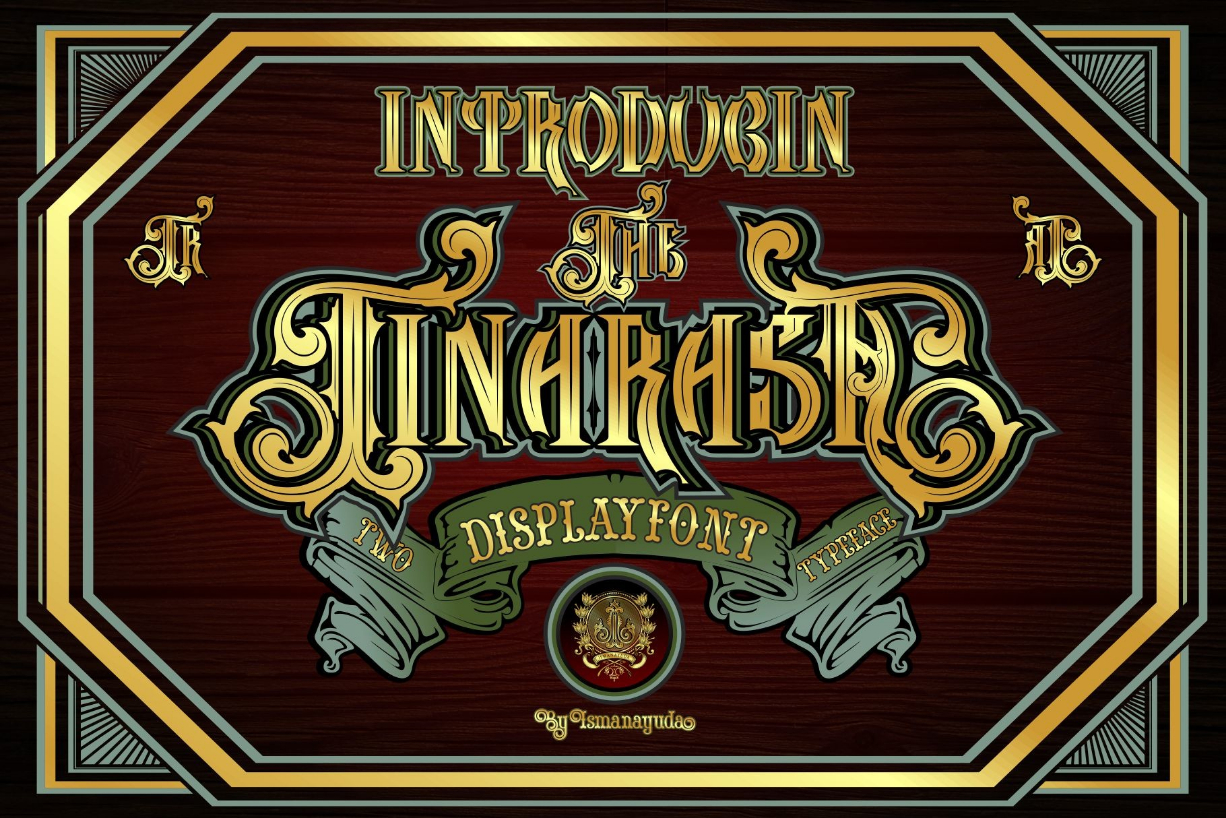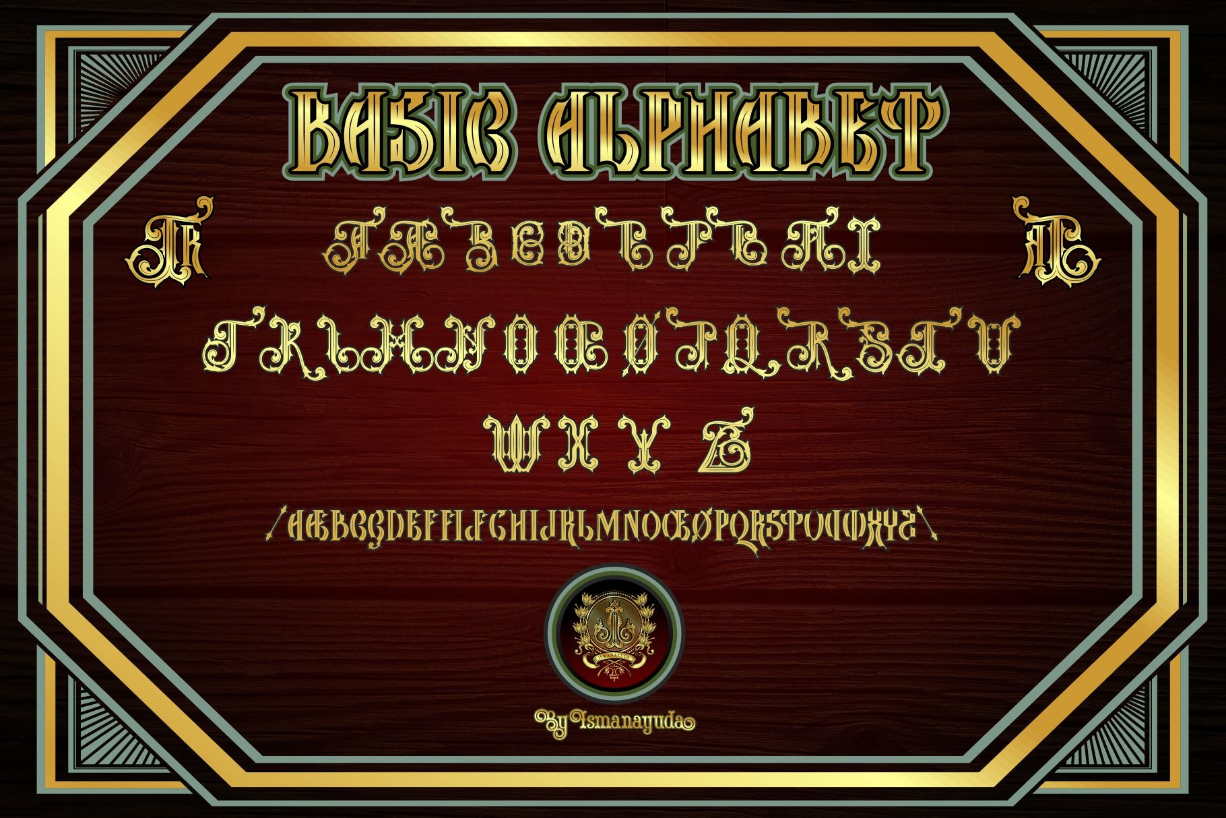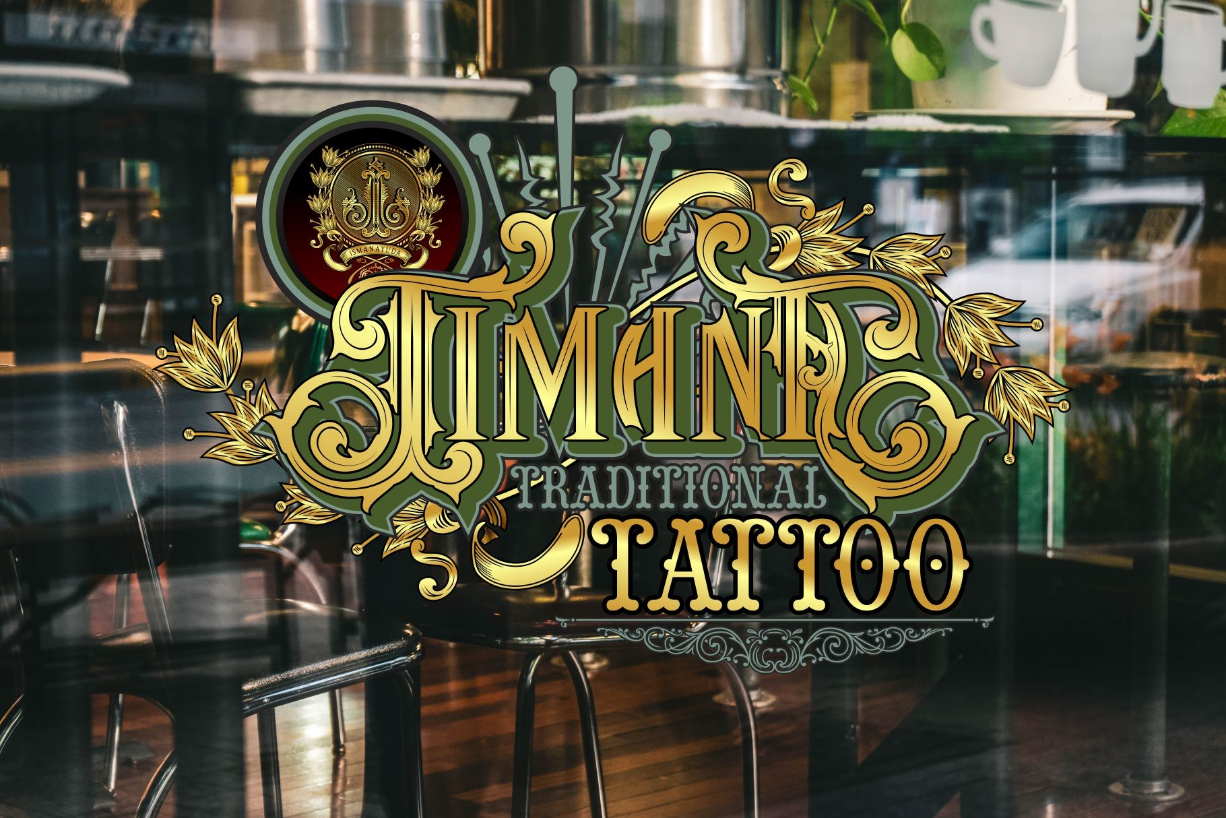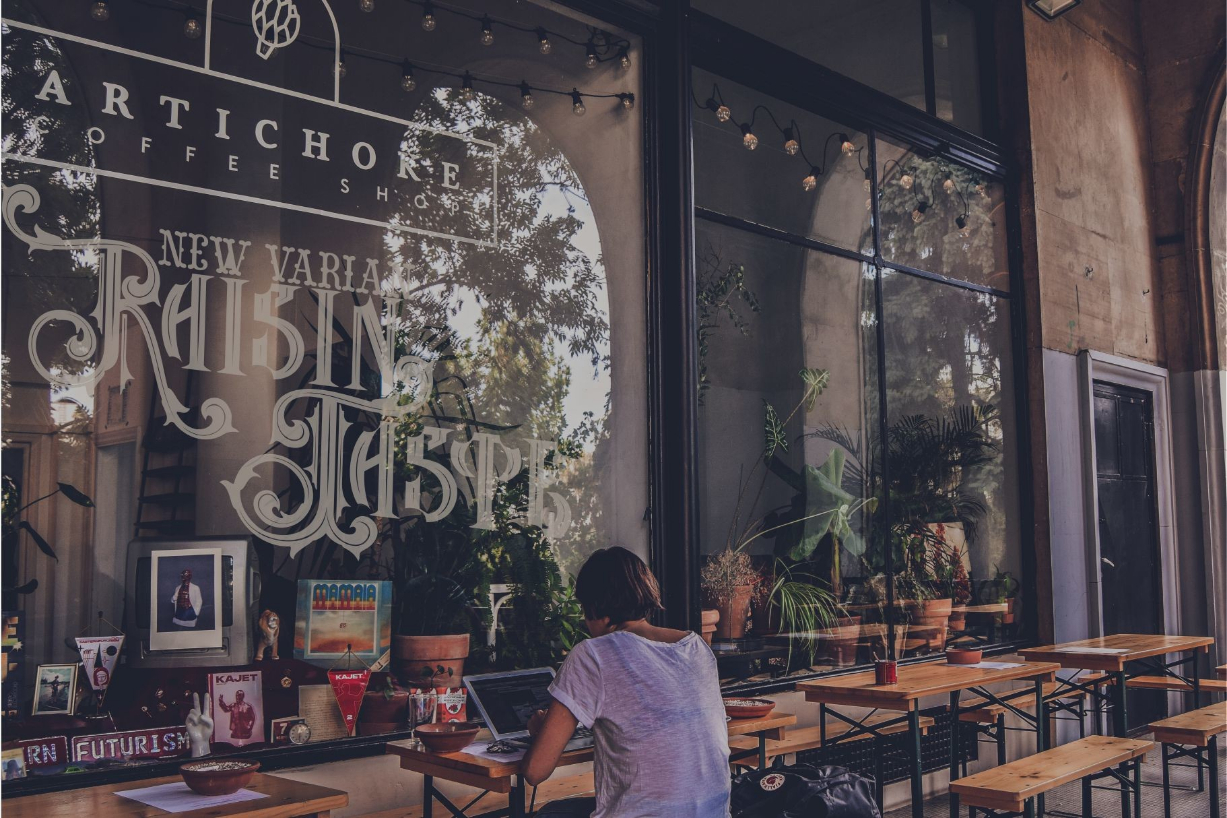
About Tinarasa Font
Tinarasa is an elegant font with a gothic-inspired themed and two different characters. You can see letters with strong black-letter characters with various ornaments. This creative display font is a perfect match for logos, tattoos, branding, coffee shops, and more.